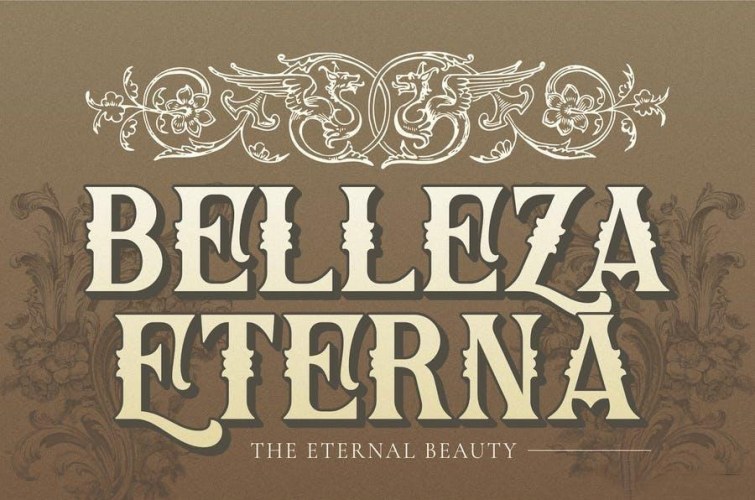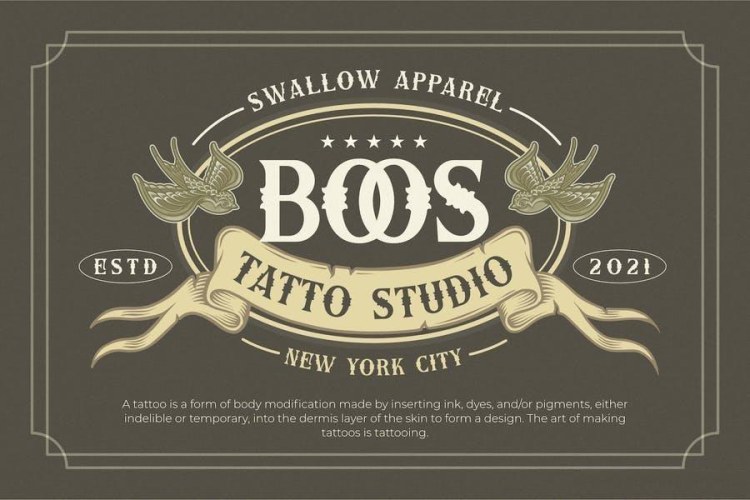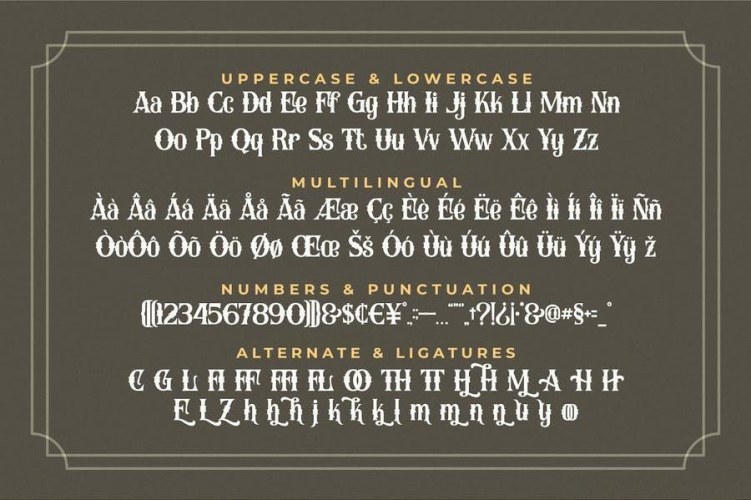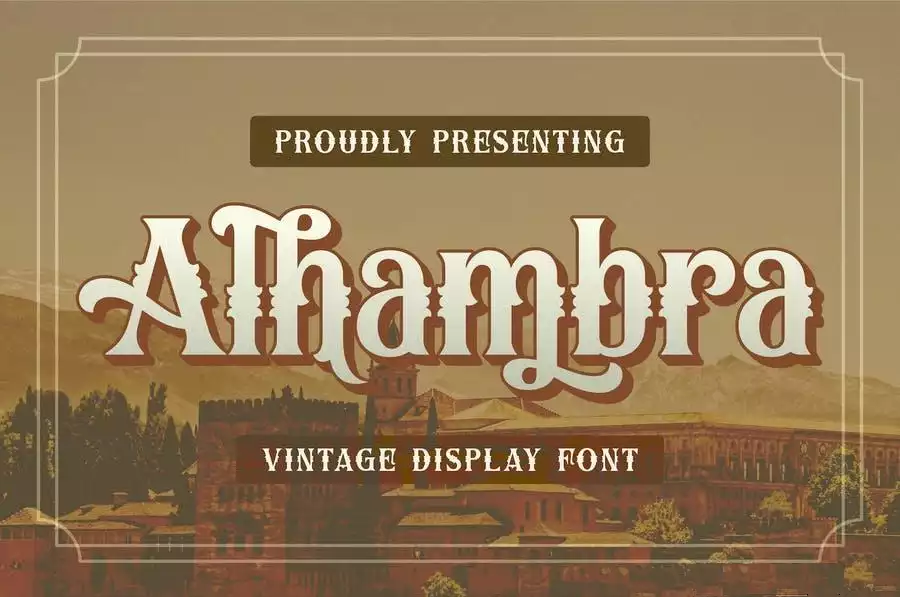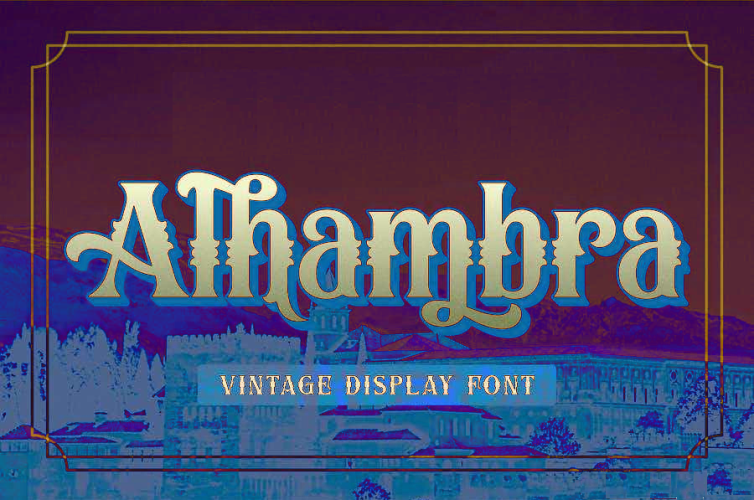
Alhambra Font
Alhambra font is perfect for many projects like logos & branding, photography, invitations, watermarks, advertisements, product designs, stationery, wedding designs, labels, product packaging, special events, and more.
Where Alhambra Font works best
Alhambra Font is built for size: event posters, hero headlines and billboard-style layouts.
High contrast display type like Alhambra Font reads instantly in thumbnails and motion graphics.
What is Alhambra Font good for?
Alhambra Font is a Display Fonts typeface tagged Branding, Display, Display Fonts, Packaging. It works well for headlines, logos, posters, social media graphics and branding projects that need a distinctive display fonts look.